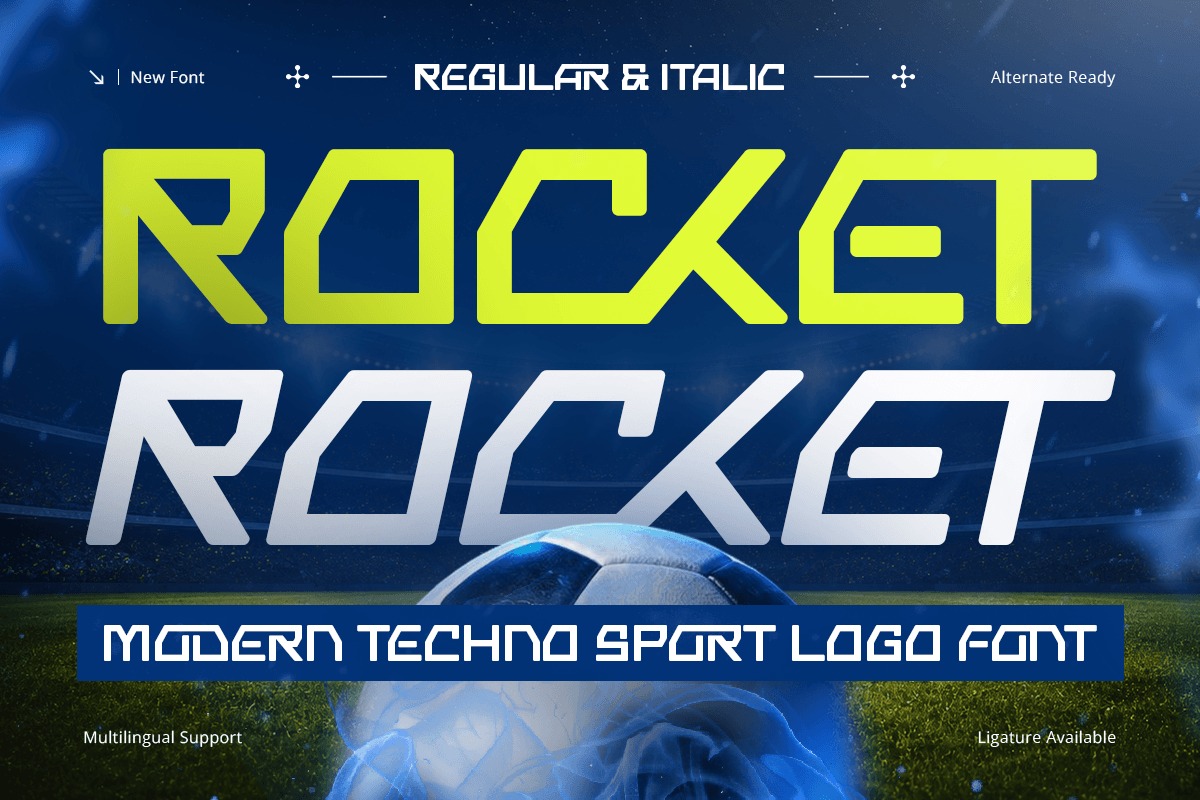
Rocket – Modern Techno Font
Rocket – Modern Techno Font is a futuristic display font created for motorsport branding, racing logos, automotive graphics, esports identities, gaming visuals, and technology-focused branding. Inspired by high-speed engineering, digital innovation, and competitive sports, Rocket combines bold techno styling with dynamic letterforms to deliver a powerful and memorable visual identity.
Featuring sharp geometric characters, aggressive racing-inspired details, and a modern futuristic structure, Rocket conveys speed, precision, and innovation. Its high-impact design is optimized for logo creation, branding systems, display headlines, marketing campaigns, and digital media, making it ideal for projects that demand a bold competitive appearance.
Whether you’re designing a motorsport logo, building an automotive brand, launching an esports team, or creating technology marketing materials, Rocket provides the performance-driven typography needed to make your brand stand out.
Rocket Font Features
Character Set: Uppercase, lowercase, numbers, symbols, and punctuation
Modern techno sport letterforms optimized for logo design and performance branding
Prepared with regular and italic version
OpenType features ready to enhance your design needs
Rocket is Perfect For
Motorsport and racing branding
Automotive logo and visual identity design
Esports and gaming branding
Technology startup branding
Racing event promotions and digital campaigns
Website headers and user interface design
Dynamic display typography
High-performance marketing materials